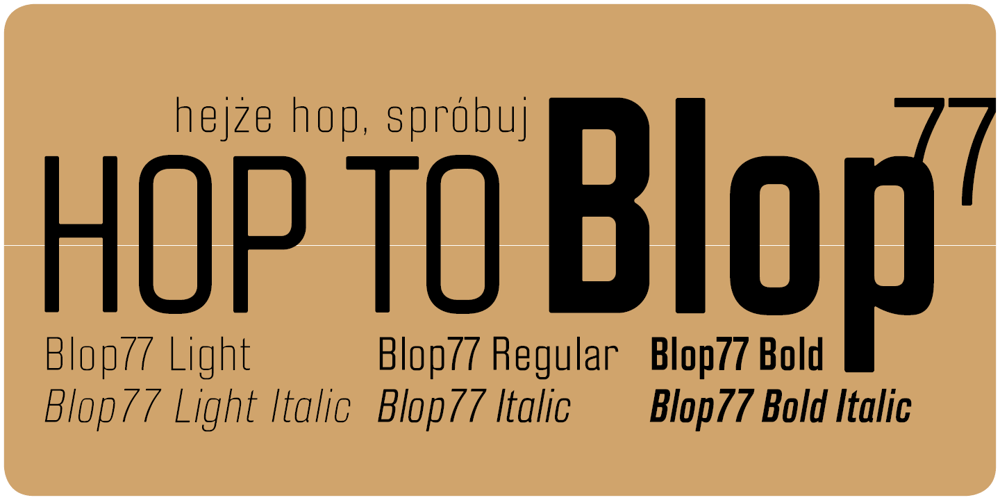
Blop77
Blop77 font
Blop77 Font Family was designed by Paweł Osial and published by osialus. Blop77 contains 6 styles and family package options. Blop77 is a geometric sans-serif type family, consisting of 3 weights. It is based on the Blop11, being its expanded version. Blop77 is well-suited to headlines and short text.